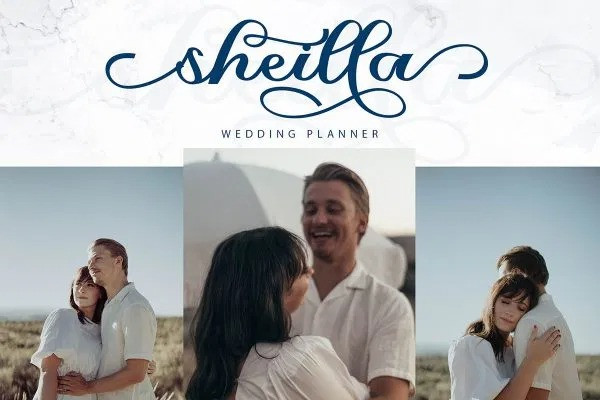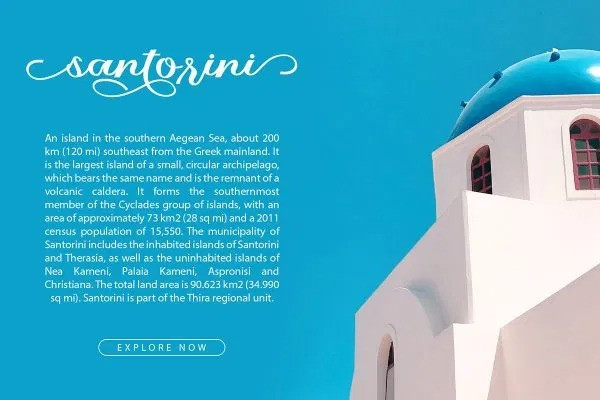
Raflist Script Font
Raflist is an exquisite handwritten font, masterfully designed to become a true favorite. It maintains its classy calligraphic influences while feeling contemporary and fresh. Fall in love with it and bring your projects to the highest levels!